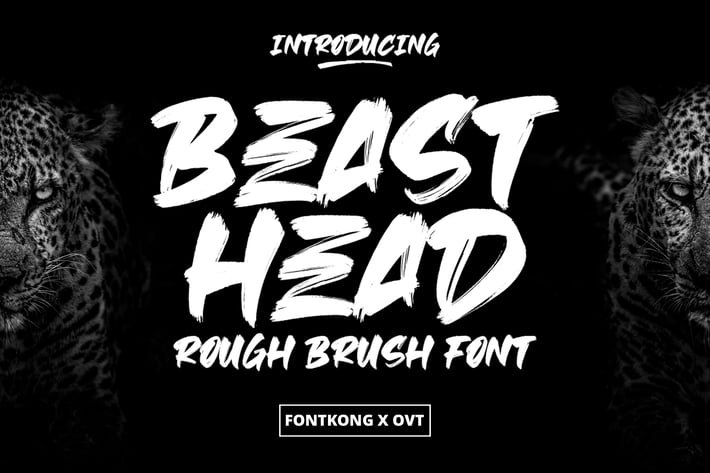
Beast Head - Rough Brush Font
Introducing "Beast Head," a rough brush font that channels untamed energy and raw creativity into your design projects. Perfect for graphic designers, artists, and creatives seeking to make a bold and rugged statement, Beast Head offers a fierce and dynamic style that captures the essence of wild, hand-painted strokes.
Ideal for posters, album covers, apparel design, branding, and impactful headlines, Beast Head's textured and aggressive brush strokes provide a powerful and gritty aesthetic. Each character is meticulously crafted to reflect the authenticity and spontaneity of brush lettering, ensuring your designs stand out with strength and personality.
The "Beast Head" font includes a complete set of uppercase and lowercase letters, numbers, punctuation marks, and special characters. This versatility allows for seamless integration into various design projects, from edgy branding to standout promotional materials.
Unleash the beast in your designs with Beast Head, the rough brush font that adds raw energy and creativity to every project.
Introducing "Beast Head," a rough brush font that channels untamed energy and raw creativity into your design projects. Perfect for graphic designers, artists, and creatives seeking to make a bold and rugged statement, Beast Head offers a fierce and dynamic style that captures the essence of wild, hand-painted strokes.
Ideal for posters, album covers, apparel design, branding, and impactful headlines, Beast Head's textured and aggressive brush strokes provide a powerful and gritty aesthetic. Each character is meticulously crafted to reflect the authenticity and spontaneity of brush lettering, ensuring your designs stand out with strength and personality.
The "Beast Head" font includes a complete set of uppercase and lowercase letters, numbers, punctuation marks, and special characters. This versatility allows for seamless integration into various design projects, from edgy branding to standout promotional materials.
Unleash the beast in your designs with Beast Head, the rough brush font that adds raw energy and creativity to every project.